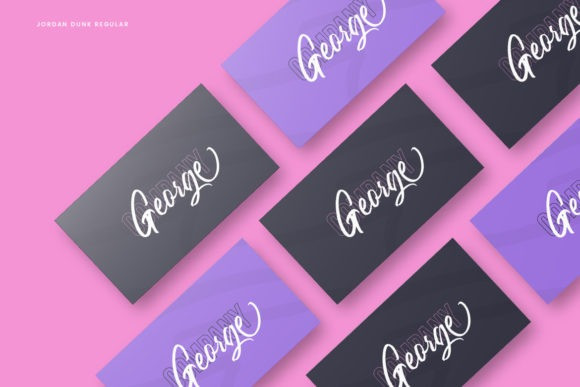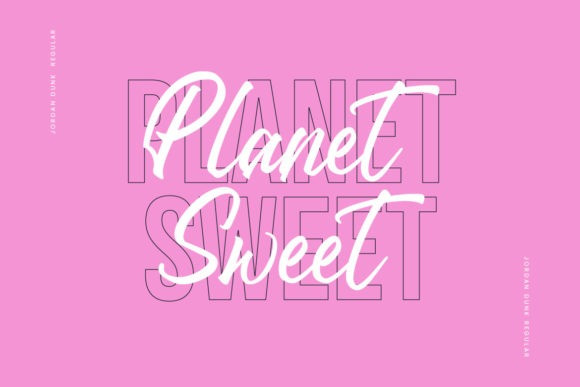
Jordan Dunk Font
Jordan Dunk Script Font is a chic and trendy script font that emanates sophistication and elegance. Its stylish alternates and ligatures make this font the perfect match for any project. Jordan Dunk is PUA encoded which means you can access all of the amazing glyphs and ligatures with ease!